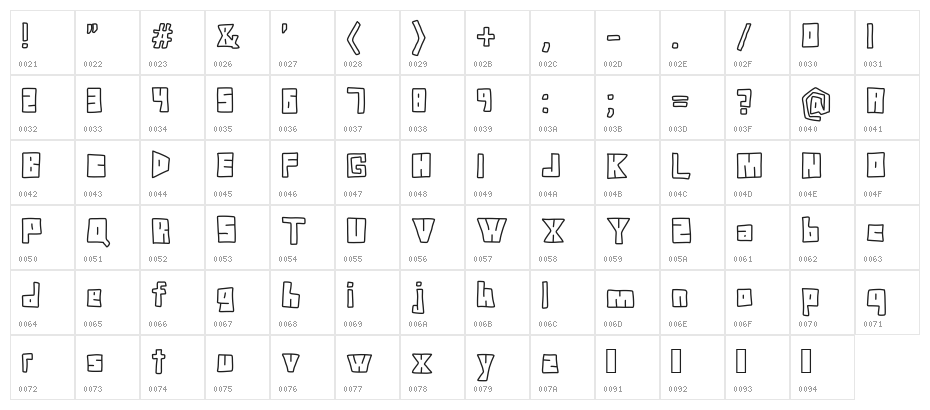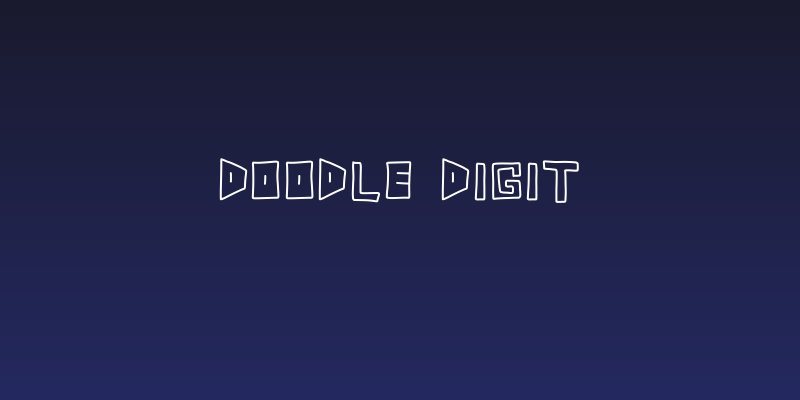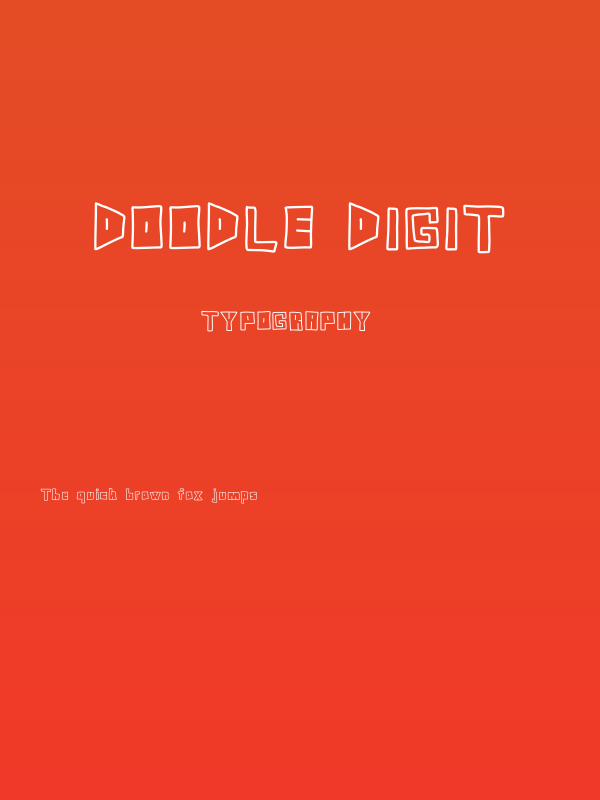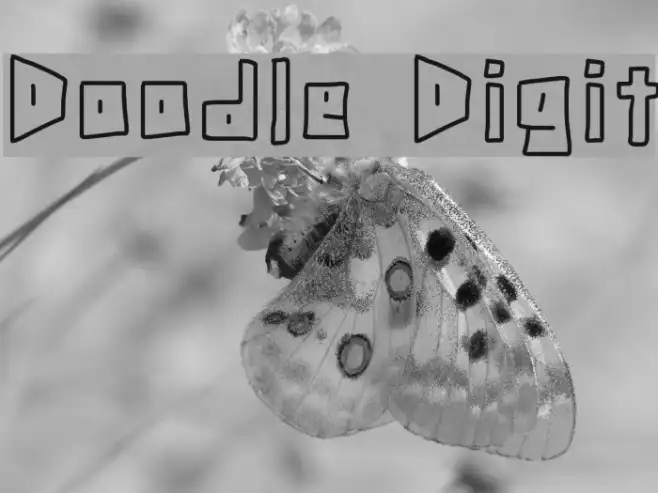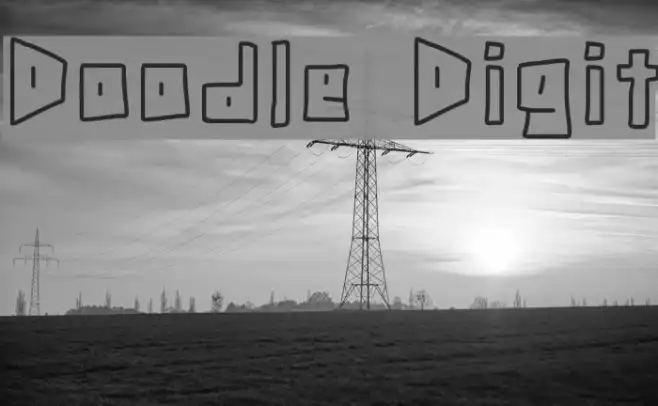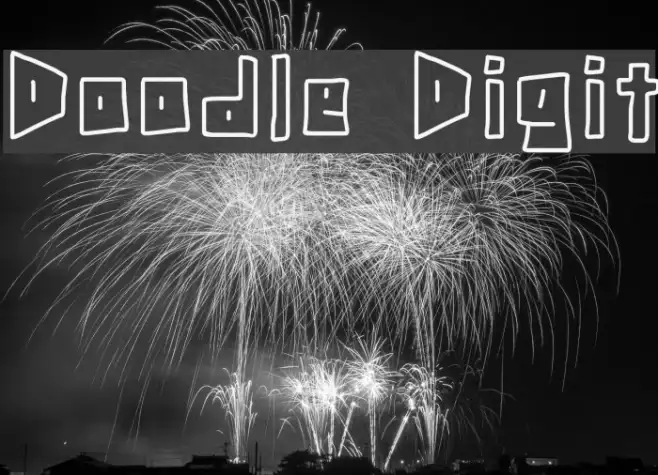
Doodle Digit Font
Doodle Digit Description
This font features a playful, hand-drawn style with a doodle-like appearance. Each character is outlined with a bold, uneven stroke, giving it a casual and whimsical feel. The letters are slightly irregular, adding to the charm and uniqueness of the design. The uppercase and lowercase letters maintain a consistent style, with the numbers and special characters following suit. The overall look is informal and creative, making it suitable for projects that require a fun and approachable aesthetic.
| Use Case | Headlines, Posters, Creative Projects |
| Proposed Projects | Ideal for children's books, comic strips, playful branding, and creative posters. |